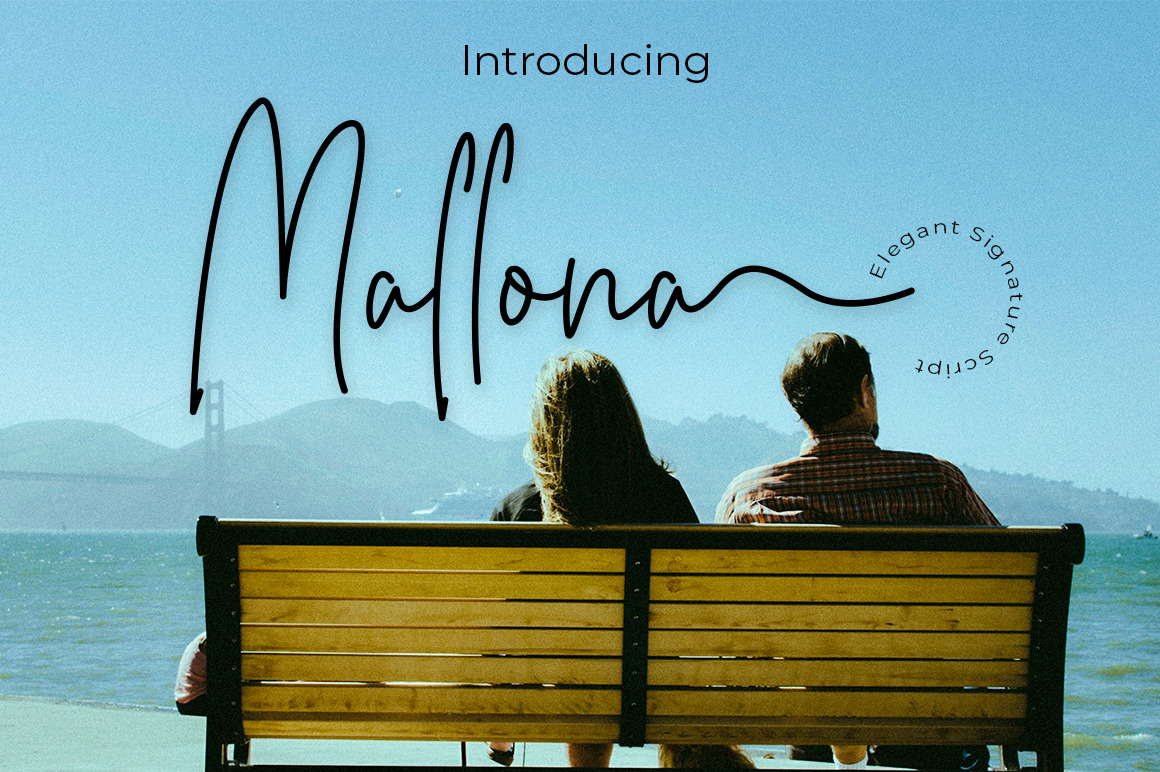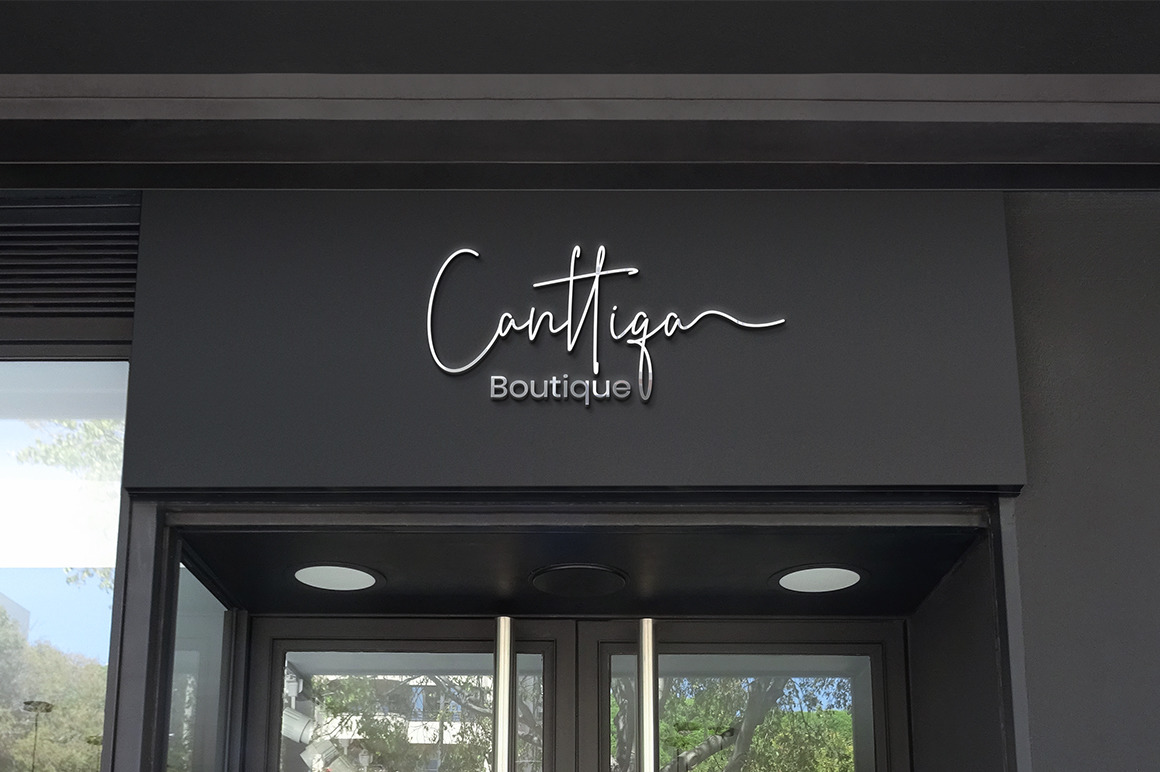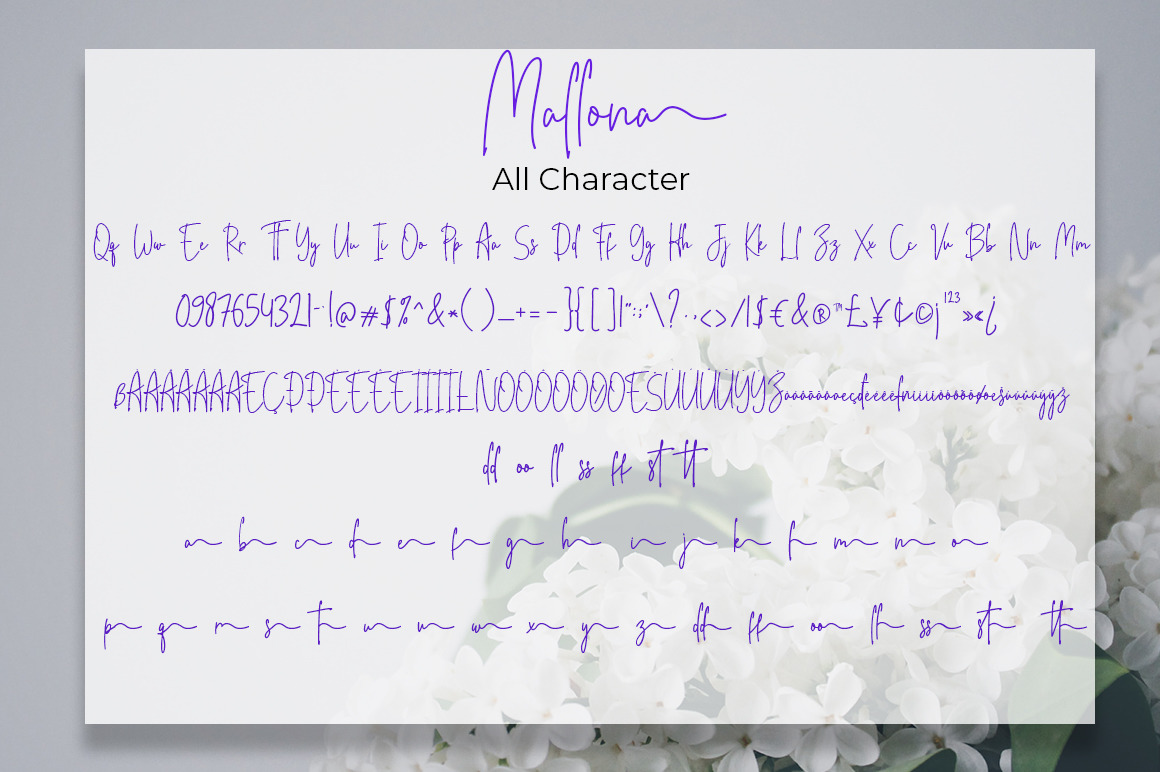
Mallona Font
Mallona is monoline script font which natural movement and elegant for signature style.
is perfect for branding projects, logo, wedding designs, social media posts, advertisements, product packaging, product designs, label, photography, watermark, invitation, stationery and any projects that need handwriting taste.
• Ligature